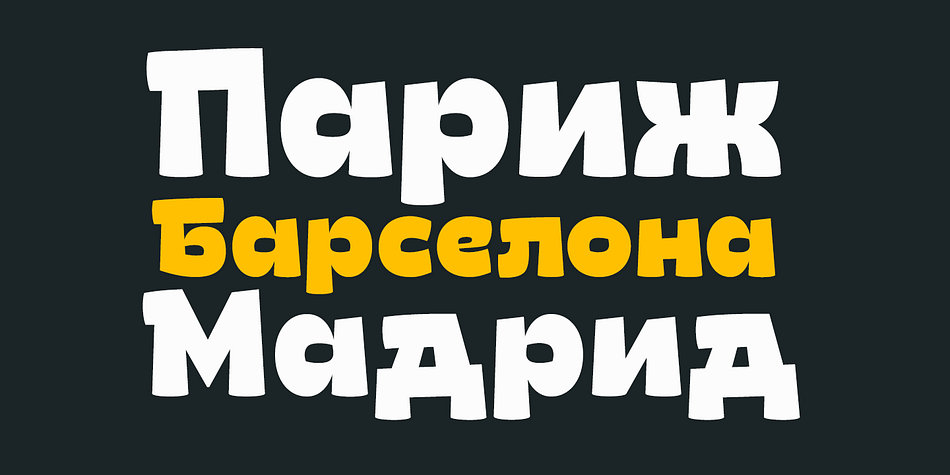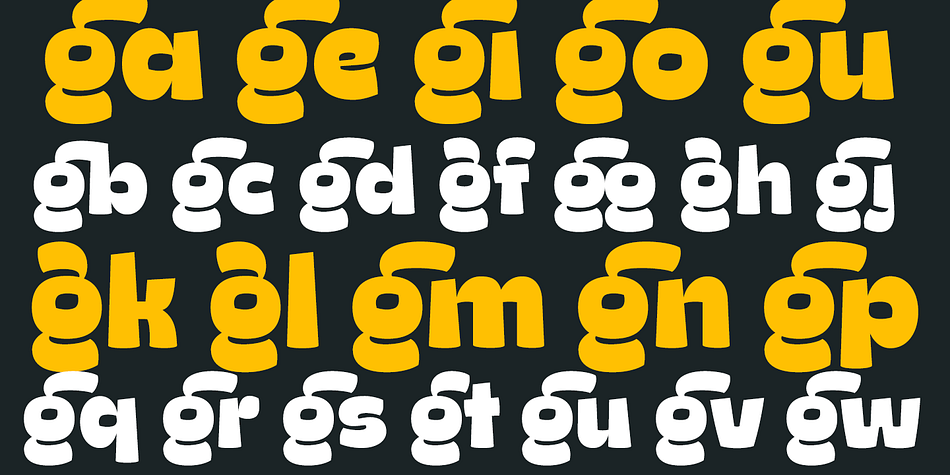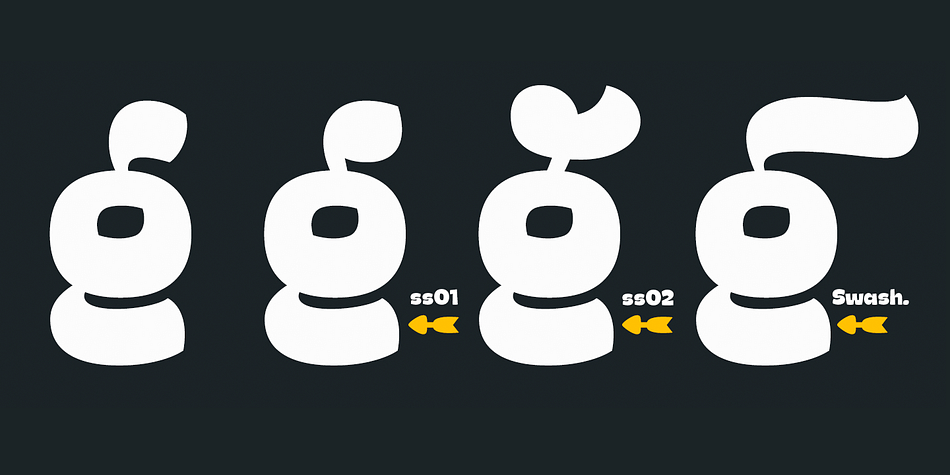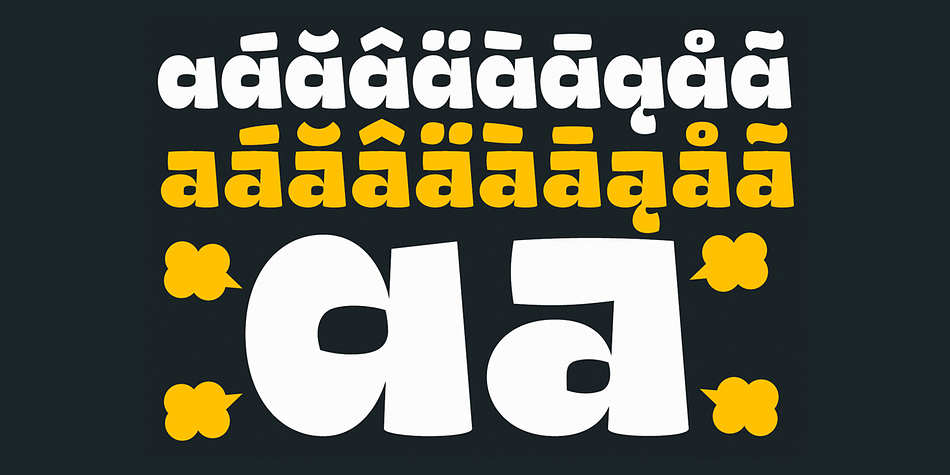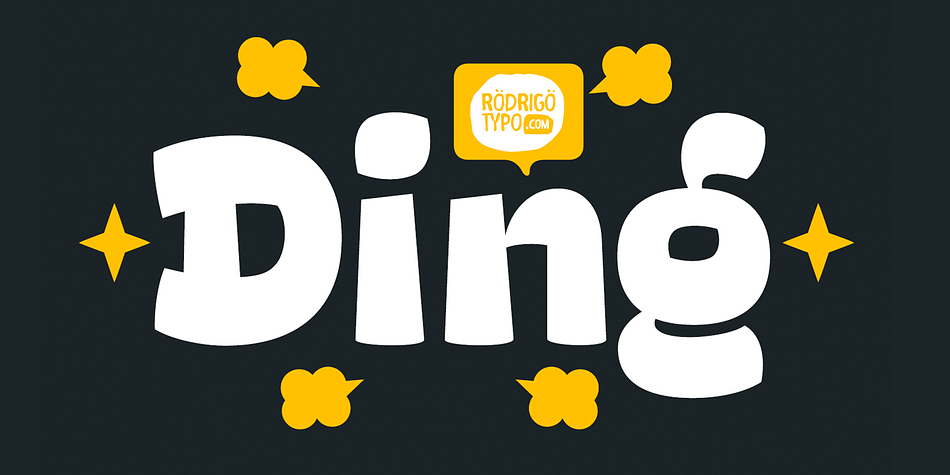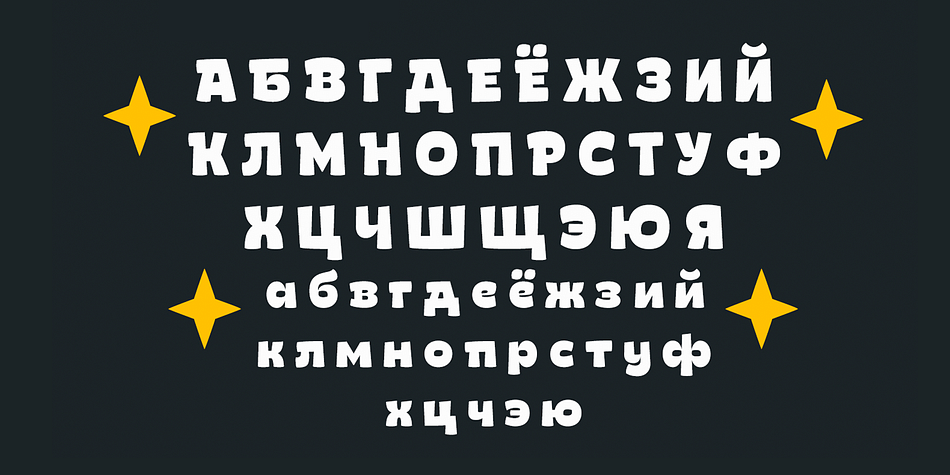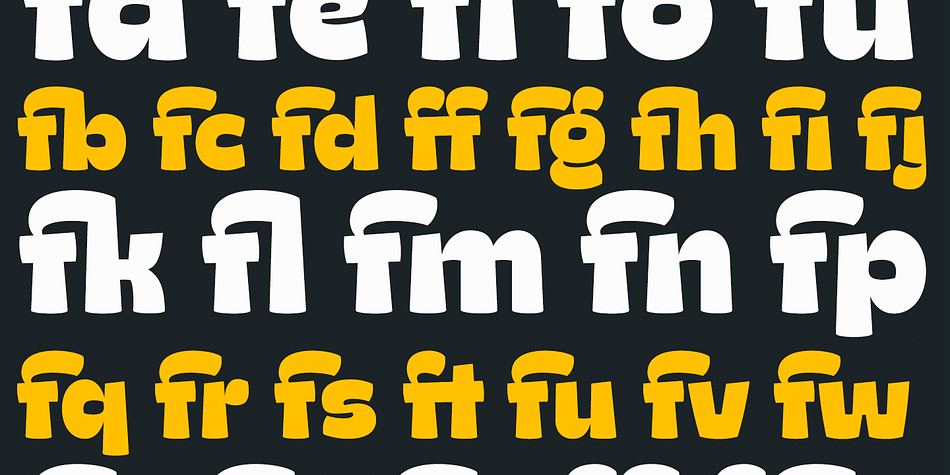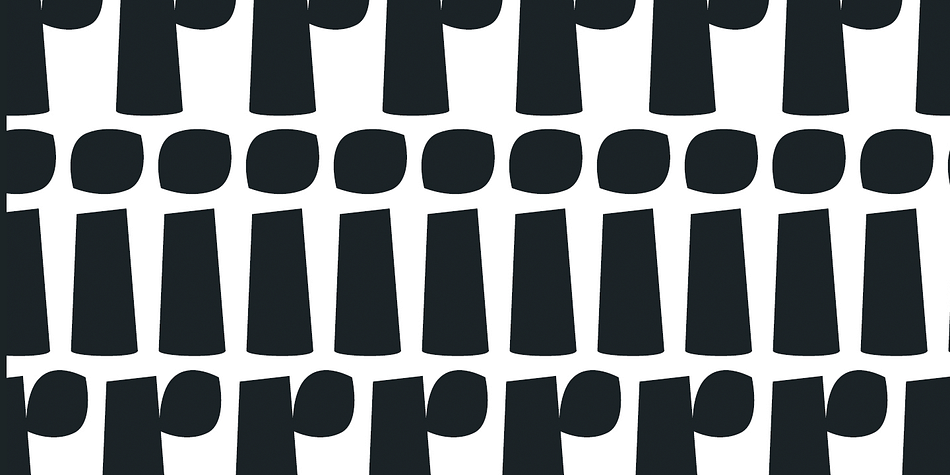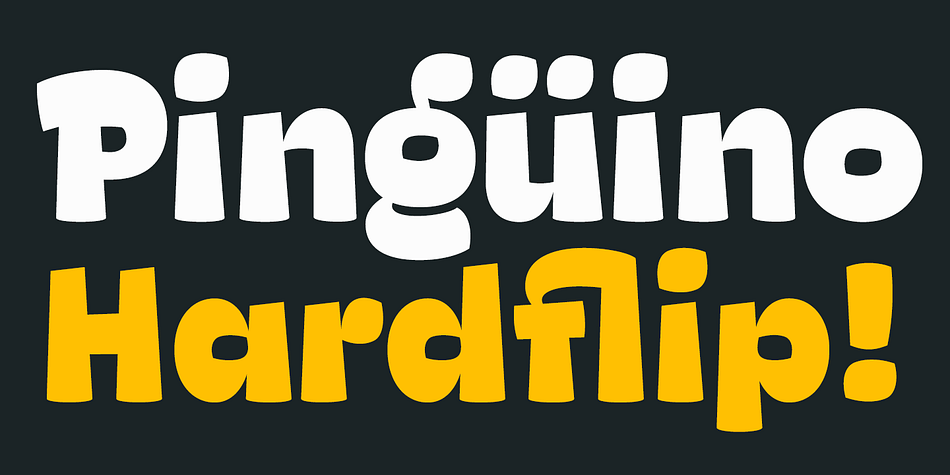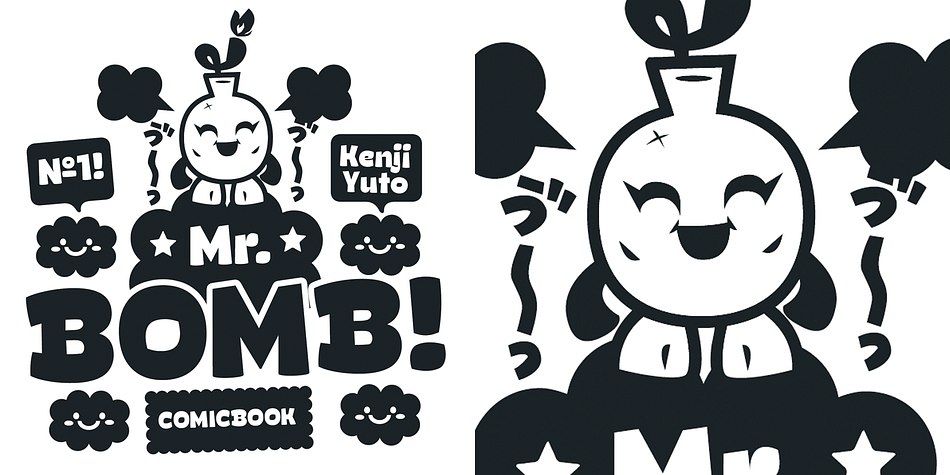
Designed by Andrey Kudryavtsev, Rodrigo Salas and Franco Hernández, Ding Heavy is a hand display and dingbat font family. This typeface has two styles and was published by Rodrigo Typo.
An entertaining typography, dense but at the same time very gestural, is a sans font, which contains different alternatives of letters, contains the alphabet Cyrillic, Dingbat, is special for children’s titles.